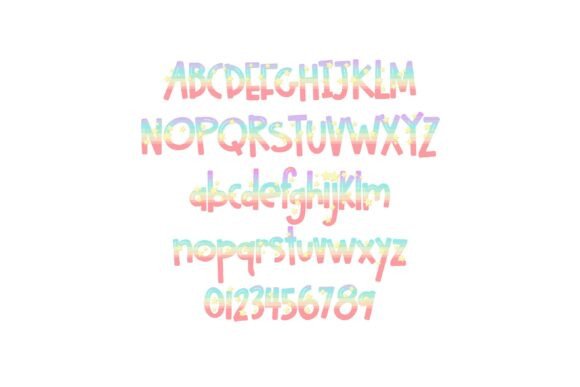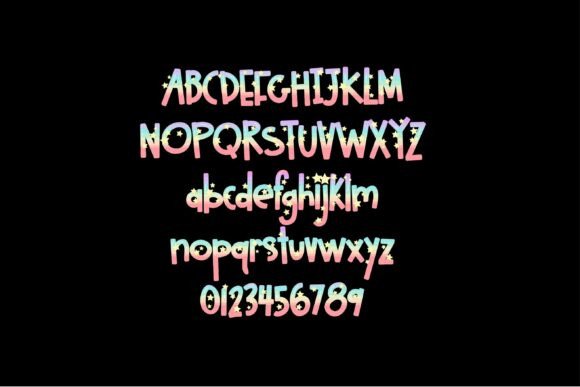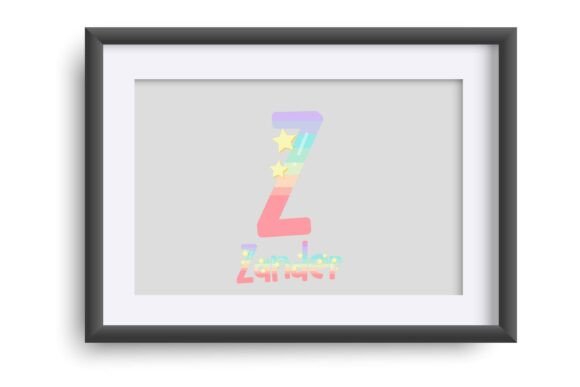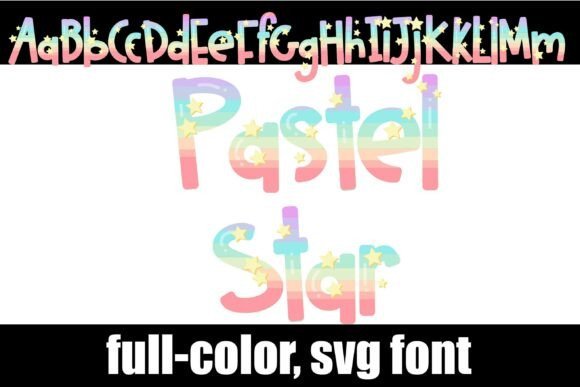
Introduction to Pastel Star Font
Sprinkle a dash of cosmic magic onto your canvas with Pastel Star, an enchanting full-color SVG font designed to radiate sweet, dreamy energy.
This typeface features soft, rounded, pillowy letterforms decorated with a smooth, horizontal rainbow-gradient fill and sprinkled with glowing golden stars of varying sizes Its unique character is defined by subtle white glossy highlights that give the alphabet a glazed, glass-like dimension.